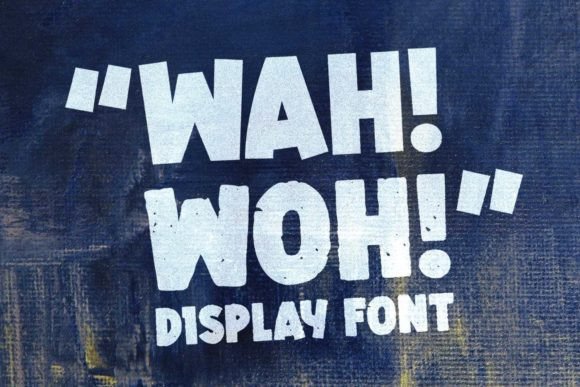
Introducing Wah Woh Font, the typeface that's an instant head-turner for your designs. This display font is crafted for maximum impact and designed to set your words ablaze. Its bold, heavy presence commands attention, making it the perfect choice for headlines, titles, and any text that demands to be noticed.
Wah Woh's captivating contrast between rugged uppercase and sharp lowercase creates a visually stimulating experience. The uppercase exudes an air of street style and urban flair, while the lowercase adds a touch of modernity and finesse. This unique combination makes Wah Woh a versatile font, effortlessly adapting to a wide range of design styles.
Whether you're crafting eye-catching posters, designing impactful social media graphics, or creating website headers that leave a lasting impression, Wah Woh Font is your go-to choice. Its ability to seamlessly blend with other artwork and typefaces ensures that your creations will stand out from the crowd.
With Wah Woh Font, you'll have the power to convey your messages with boldness and clarity. Its bold strokes cut through the noise, ensuring that your words resonate with your audience. Experience the transformative power of Wah Woh Font and watch your designs rise above the ordinary.
Don't let your designs blend into the background; give them the attention they deserve with Wah Woh Font. Embrace the street style, the boldness, the retro charm, and the urban edge that this font brings to your creations. Let Wah Woh Font ignite your designs and captivate your audience today!